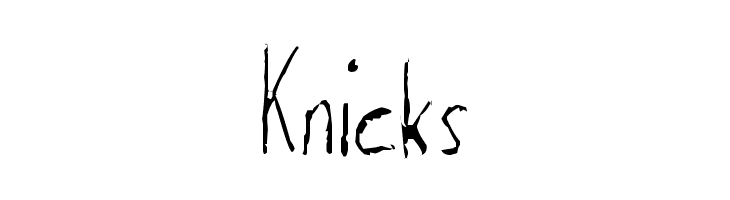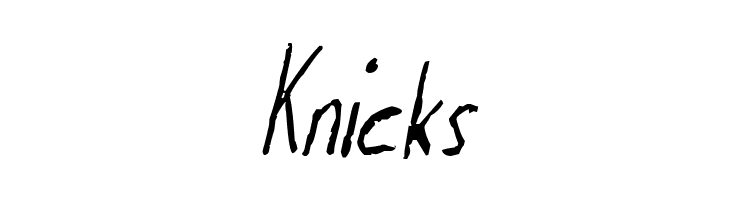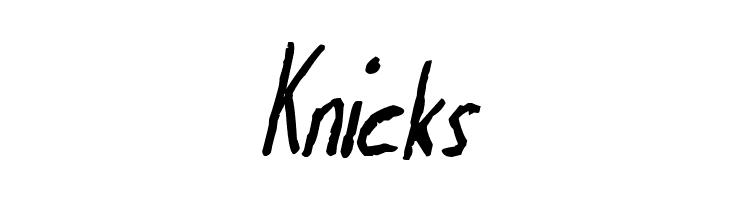
( Fonts by Christopher Jackson )
A bold, italicized, and playful handwritten font with an energetic and informal style.
( Fonts by Christopher Jackson )
A playful, handwritten font with a quirky, informal style.
( Fonts by Christopher Jackson )
A playful, hand-drawn font with a whimsical, childlike style.